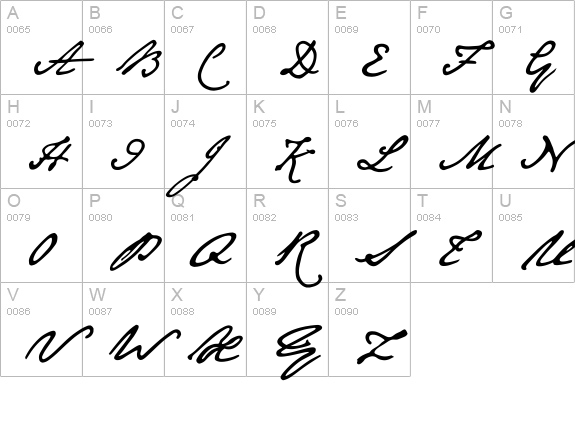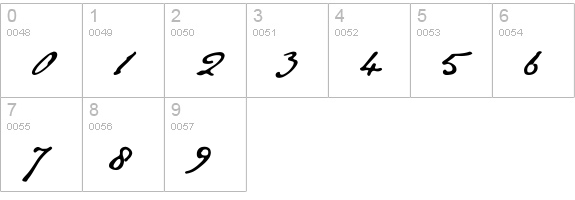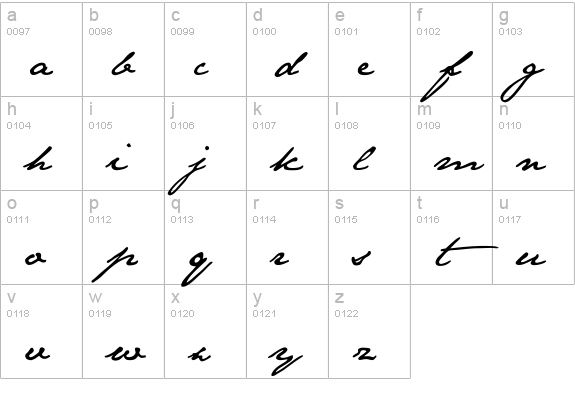
JaneAusten Font Details
The JaneAusten font exudes timeless elegance and sophistication, inspired by the literary works of the renowned author Jane Austen. Its delicate and graceful letterforms capture the essence of the Regency era, making it perfect for adding a touch of classic charm to your projects. Whether you're designing invitations, stationery, or literature-related materials, the JaneAusten font is sure to impress with its refined aesthetic. Best of all, the JaneAusten font is available for free download at FontsMarket.com. Embrace the beauty of the past and bring a touch of literary history to your designs with this exquisite typeface. Download the JaneAusten font today and elevate your projects with its timeless allure.